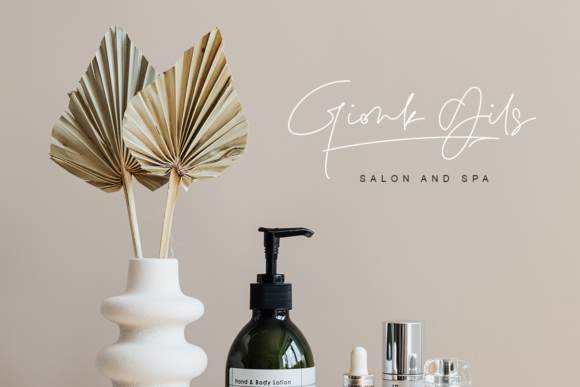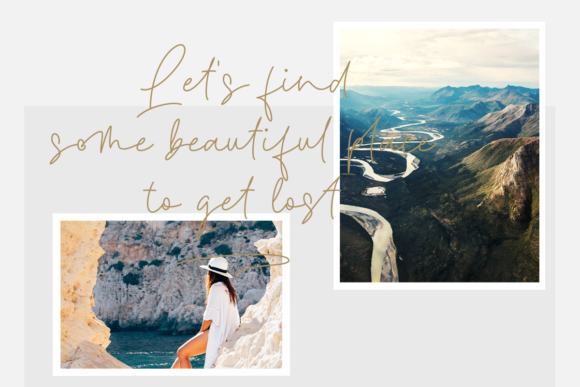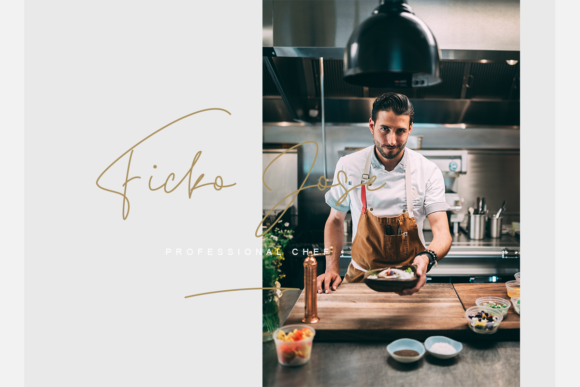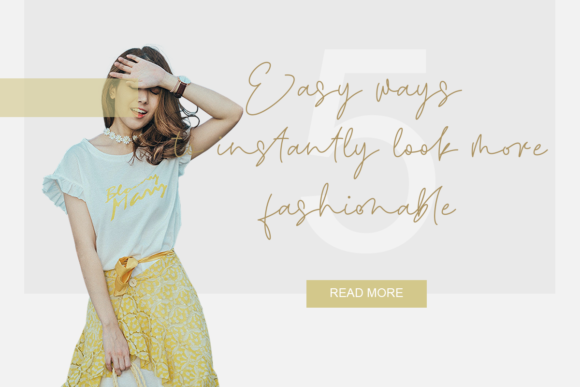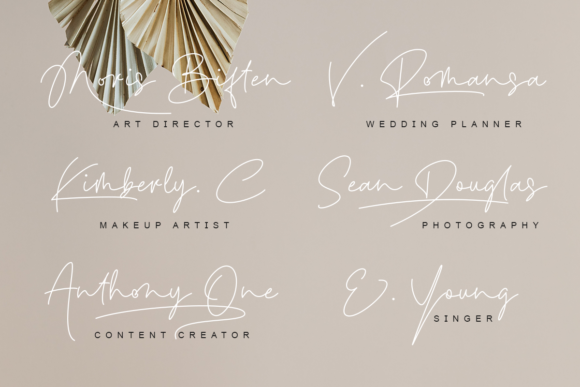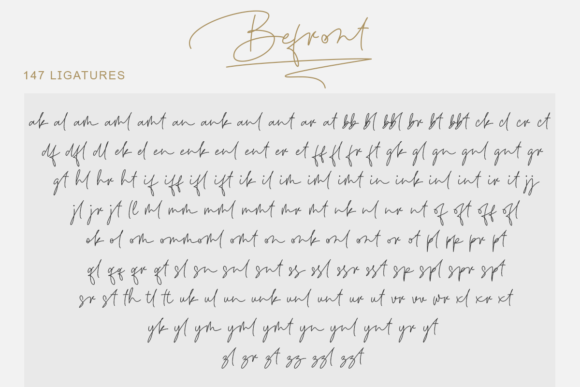
The Perfect Blend of Elegance and Whimsy: Introducing Befront Font
Have you ever found yourself scribbling out a beautiful handwritten quote in the margins of a notebook, only to realize that the perfect font to match your creative expression was just out of reach? For designers, finding the right font can be a daunting task, especially when it comes to capturing the essence of handwritten elegance.
Enter Befront Font, a stunning typeface that embodies the perfect blend of flowing lines, gorgeous glyphs, and stunning alternates. This beautiful font is perfect for designers looking to add a touch of whimsy and sophistication to their designs, whether it’s a wedding invitation, a thank you card, or a logo.
With Befront Font, designers can unlock a world of creative possibilities and bring their vision to life with ease. Whether you’re a seasoned pro or just starting out, this versatile font is sure to become a go-to favorite in your design arsenal.
Befront Font Key Features
- Unique Characteristics: Befront Font features a unique blend of modern and vintage elements, with a distinctive aesthetic that sets it apart from other fonts.
Befront Font Review
Overall, I found the Befront Font to be a solid addition to any designer’s toolkit. Here’s what I think works well: ✨
- Unique Character Set: The Befront Font features a unique character set that adds a touch of sophistication to any design.
- High-Quality Typography: The font is well-crafted and offers high-quality typography that is sure to impress.
- Flexibility: Befront Font is highly versatile and can be used in a variety of contexts, from digital design to print materials.
- Limited Language Support: Unfortunately, the Befront Font only supports a limited number of languages, which may be a concern for designers working on international projects.
Overall, I’d say the Befront Font is a great choice for designers looking to add some personality to their work. While it has its limitations, the unique character set and high-quality typography make it a worthwhile investment for those who can afford it.
The Befront Font is a versatile font suitable for various design projects, including:
- Web design and landing pages
- Editorial content and blog posts
Alternatives to Befront Font
Montserrat is a sans-serif font that is highly legible and versatile. It is suitable for use in headings, body text, and even as a display font. Montserrat is a great alternative to Befront Font for designers who want a clean and modern look. It is more geometric and condensed compared to Befront Font, making it ideal for small screens and digital interfaces.
Open Sans is a modern sans-serif font that is highly readable and suitable for use in a wide range of applications. It is a great alternative to Befront Font for designers who want a clean and neutral look. Open Sans is more rounded and friendly compared to Befront Font, making it ideal for use in editorial and publishing contexts.
3. Inter Font
Inter is a sans-serif font that is highly legible and versatile. It is suitable for use in headings, body text, and even as a display font. Inter is a great alternative to Befront Font for designers who want a modern and sophisticated look. It is more condensed and geometric compared to Befront Font, making it ideal for use in digital interfaces and publications.
Lato is a sans-serif font that is highly readable and suitable for use in a wide range of applications. It is a great alternative to Befront Font for designers who want a clean and elegant look. Lato is more rounded and friendly compared to Befront Font, making it ideal for use in editorial and publishing contexts.
What are the recommended font sizes and line heights for using the Befront Font?
The recommended font sizes and line heights for the Befront Font vary depending on the application and context. However, as a general guideline, use font sizes between 12pt and 18pt for body text, and 24pt and 36pt for headings. For line heights, use a minimum of 1.2 times the font size for body text and 1.5 times the font size for headings.